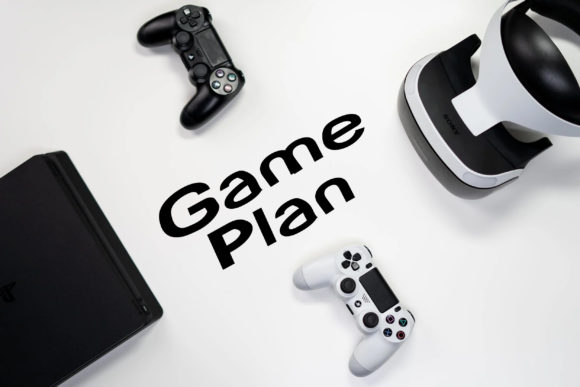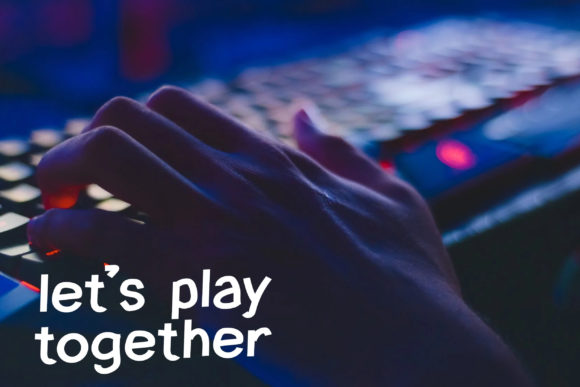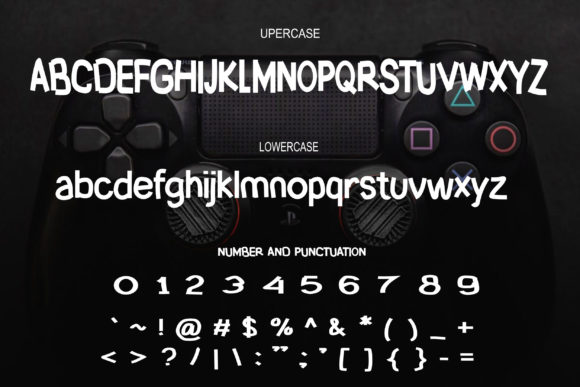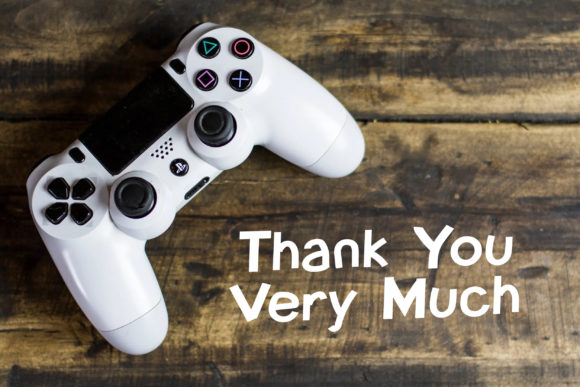
Getting Ready for Liftoff with Online Game Font
You’re staring at a blank canvas, and suddenly, a spark of creativity hits you. The ideas start flowing, and you can envision the perfect design for your next project. But, something’s missing – a font that truly captures the essence of your concept. That’s where the Online Game Font comes in, a high-quality, bold display font designed to elevate any creative project.
Whether you’re working on a game, a website, or a social media campaign, the Online Game Font is an invaluable design resource that will give your project the extra oomph it needs. With its transparent background and sleek design, this font is perfect for designers looking to make a statement. And the best part? It’s available for free download, making it an accessible addition to any design library.
Key Features of Online Game Font
- High-quality font design, perfect for creative projects and game development.
- Transparent background, allowing for seamless integration with various game assets.
- Designed to be highly legible, even at small font sizes, ensuring readability in various game environments.
- Supports a wide range of languages, making it a versatile choice for global game development projects.
- Includes a comprehensive character set, including special characters and symbols, to enhance gameplay and user experience.
Honest Review: Online Game Font
I recently stumbled upon Online Game Font, a free design resource that caught my attention. As a designer, I’m always on the lookout for high-quality fonts that can elevate my creative projects.
One of the things that stood out to me about Online Game Font is the sheer variety of styles and designs available. You can download fonts with transparent backgrounds, making it easy to customize and fit them into your design. The quality of the fonts is also top-notch, with crisp lines and smooth curves.
- Wide selection of styles and designs
- High-quality fonts with transparent backgrounds
- Fonts may not be as customizable as some paid options
Overall, I’m impressed with Online Game Font. It’s a great resource for designers who need high-quality fonts for their creative projects. While it may not offer commercial licensing options or extensive customization, it’s a great starting point for designers on a budget.
Getting the Most Out of Online Game Font
For the best results, use the font in conjunction with other design elements that match your gaming theme. Experiment with different sizes, colors, and styles to create a unique look.
Online Game Font is perfect for:
- Video game graphics and posters
- Esports branding and marketing materials
- Game-themed merchandise and apparel
Pixel Font is a high-quality font designed specifically for use in online games and creative projects. It features a transparent background, making it easy to use in any design environment. When to use: Pixel Font is ideal for retro-style games and pixel art projects.
Comparison to Online Game Font: Pixel Font has a more vintage feel, with a wider range of characters and a more detailed design. However, it may not be as versatile as Online Game Font, which offers a more modern aesthetic.
Font Awesome is a popular design resource that offers a wide range of icons and fonts for use in creative projects. It features a transparent background and is available for free download. When to use: Font Awesome is ideal for projects that require a large number of icons and a consistent design language.
Comparison to Online Game Font: Font Awesome is more geared towards icon design, whereas Online Game Font is specifically designed for text-based applications. However, both resources can be used in conjunction with each other to create a cohesive design.